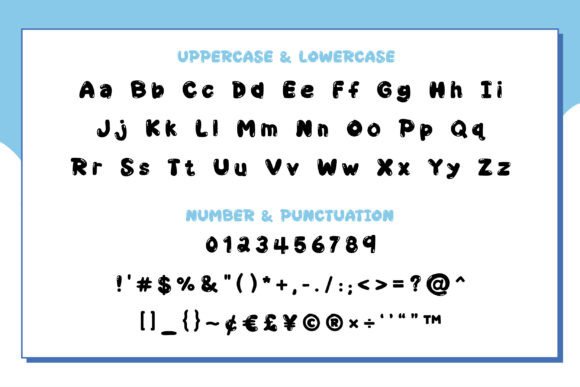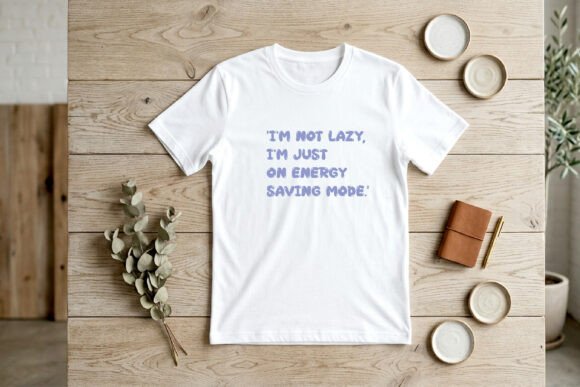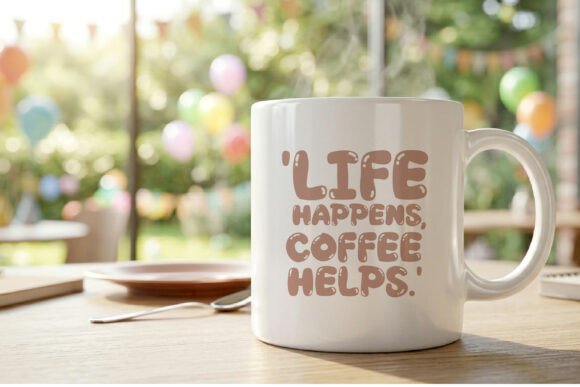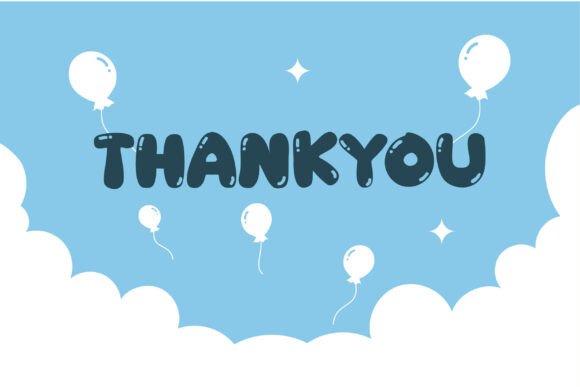
Get Ready to Pop with Creativity
Who else remembers the thrill of blowing up a balloon at a birthday party, watching it grow bigger and bigger until it’s almost too big to handle? For many of us, those carefree moments are etched in our memories, and it’s no wonder why balloons have become a symbol of celebration and joy. As designers, we’re always on the lookout for ways to infuse our work with that same sense of excitement and playfulness.
Enter the Balloon Font, a display font that captures the essence of those inflated, shiny balloons we all love. With its full, rounded lines, this font gives off a friendly and dimensional feel that’s perfect for adding a pop of fun to your designs. Whether you’re creating birthday invitations, social media graphics, or merchandise, the Balloon Font is sure to bring a smile to your audience’s faces.
What makes the Balloon Font truly valuable is its versatility and ease of use. With OTF, TTF files and a wide range of characters, you can rely on this font to add a professional touch to your designs, while still maintaining that playful vibe that’s perfect for kids’ designs, merchandise, and digital content.
Balloon Font Key Features
- Unique Characteristics: The font features a playful, whimsical design with rounded shapes and smooth curves, making it perfect for creative and informal projects.
- Font Style: The font comes in a single style, but it offers a range of weights, from Light to Bold, allowing designers to adjust the font’s appearance to suit their needs.
Designer Review: Balloon Font
When I first laid eyes on the Balloon Font, I was immediately struck by its playful and whimsical charm ✨. The font’s rounded, bubbly letters seem to dance across the screen, adding a touch of fun and personality to any design. I love how versatile it is, suitable for both digital and print projects.
However, as I dug deeper, I started to notice a few limitations ⚠️. The font’s rounded edges can sometimes make it difficult to read, especially at smaller font sizes. Additionally, the font’s uniqueness can also be a double-edged sword – while it’s perfect for playful projects, it may not be the best choice for more formal or professional designs.
- Playful, rounded letters
- Whimsical charm and personality
- Suitable for digital and print projects
- Difficult to read at smaller font sizes
- May not be suitable for formal or professional designs
Overall, I think the Balloon Font is a great choice for designers who want to add a touch of fun and personality to their projects. While it may have some limitations, its unique charm and versatility make it a great addition to any design arsenal.
The Balloon Font is a versatile font that can be used in a variety of designs, including:
- Children’s birthday party invitations
- Wedding invitations
- Signage and banners
For optimal results, use the Balloon Font in conjunction with bright, playful colors and whimsical graphics.